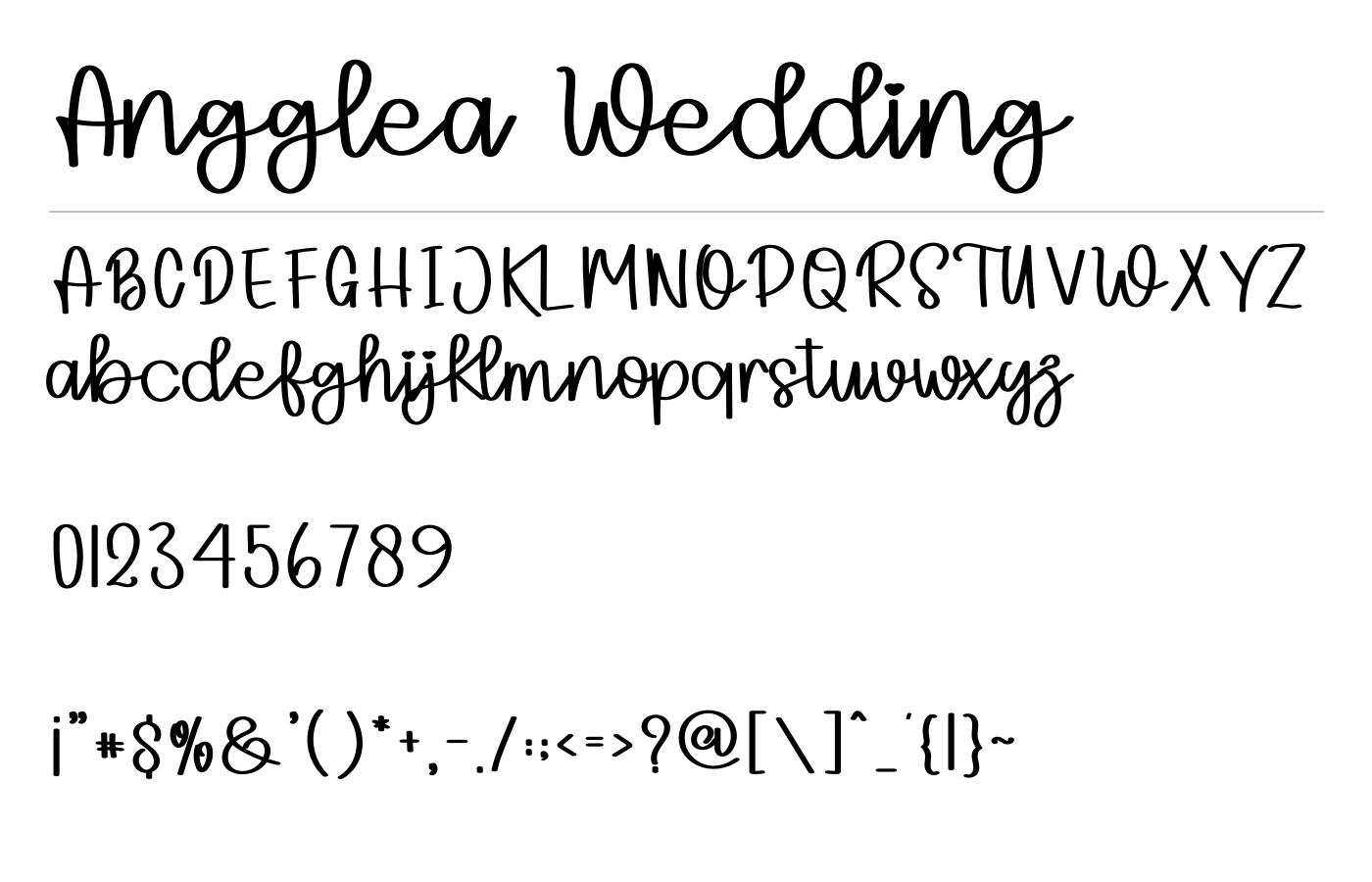
Angglea Wedding is a playful and elegant handwritten script font characterized by its smooth, flowing strokes and charming casual style. With its medium weight, tall x-height, and whimsical details like heart-shaped dots on the "i"s, it delivers a friendly, inviting feel perfect for wedding invitations, greeting cards, and romantic branding. This font’s legibility and decorative touch make it ideal for adding a warm, personal flair to headlines and logos in creative, heartfelt projects.
Angglea Wedding Font